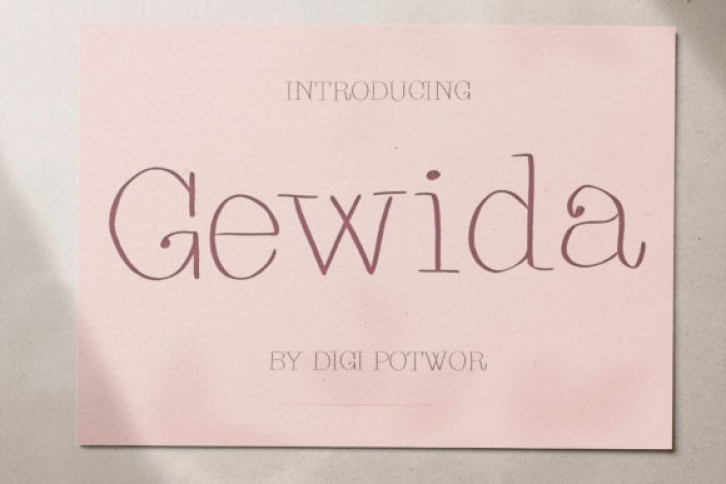
Gewida is an elegant and unique serif font. Suitable to a wide variety of designs due to its neat and simple style, Gewida has the potential to become your favorite go-to font, no matter the occasion!